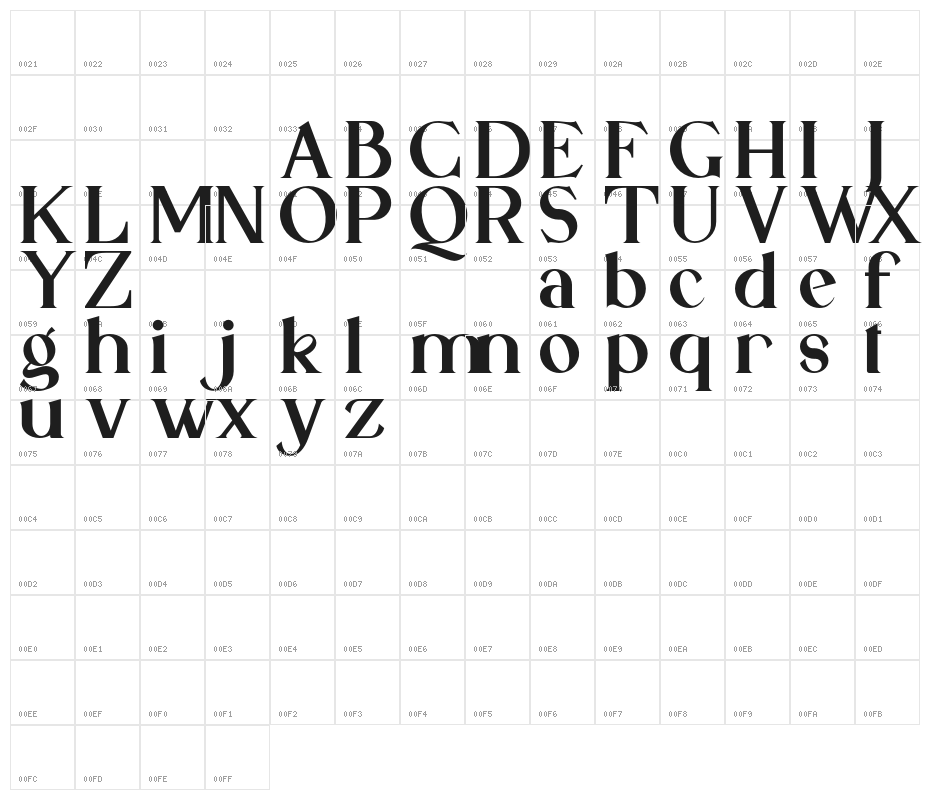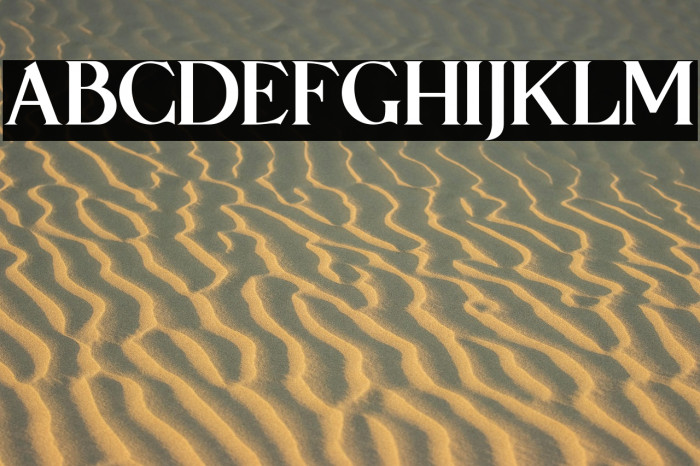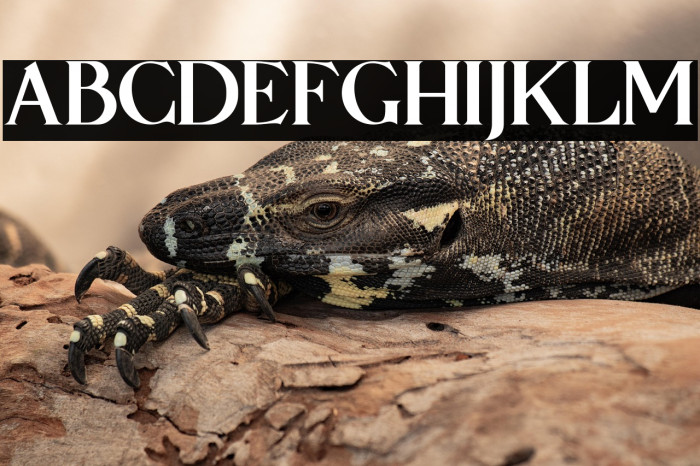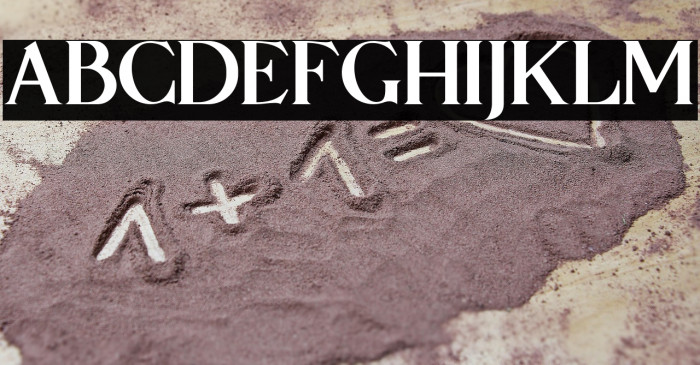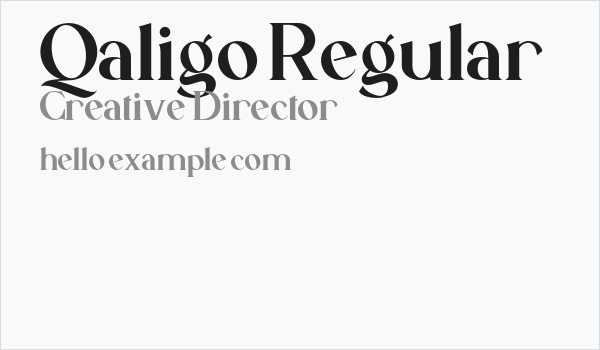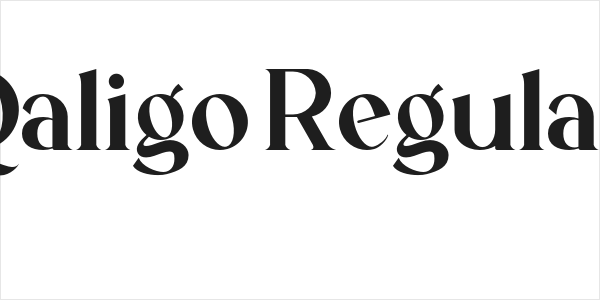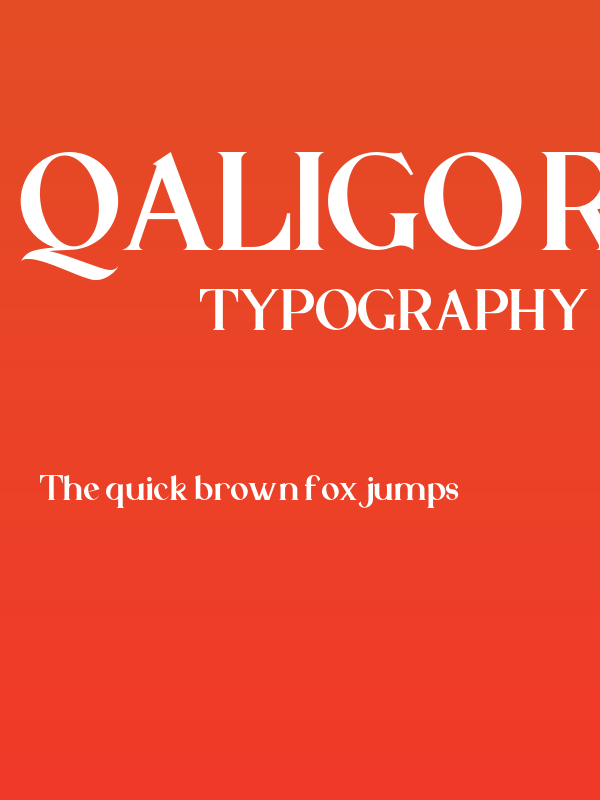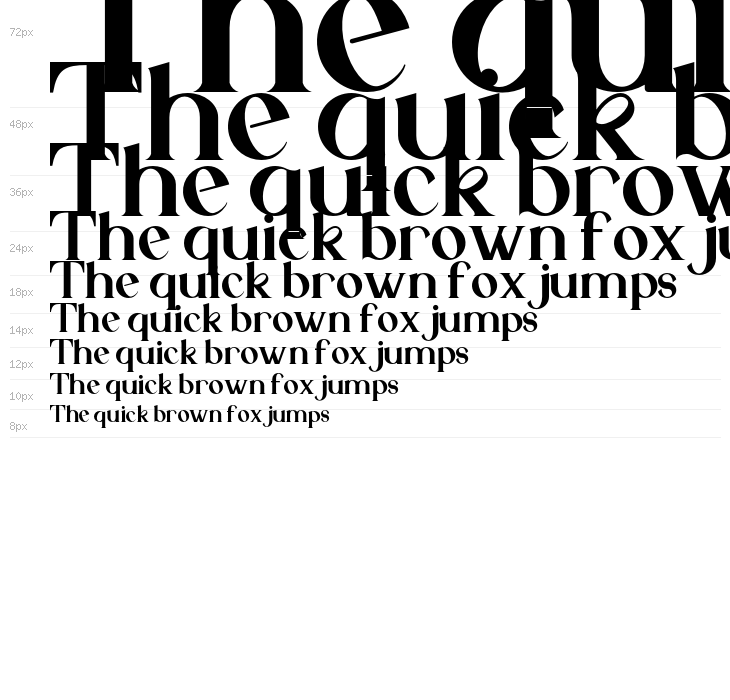
Qaligo-Regular Font
Qaligo-Regular Description
This font features a sophisticated and elegant design, characterized by its high contrast between thick and thin strokes. The serifs are pronounced, adding a classic touch to the overall modern aesthetic. The uppercase letters exhibit a strong presence with their bold and sharp lines, while the lowercase letters maintain a graceful flow. The font's unique style is further emphasized by its slightly condensed width, making it suitable for both display and text purposes. Its refined appearance makes it ideal for projects that require a touch of elegance and sophistication.